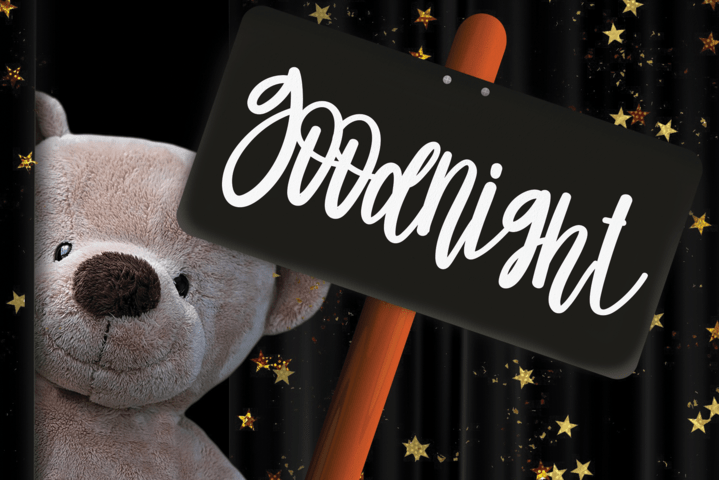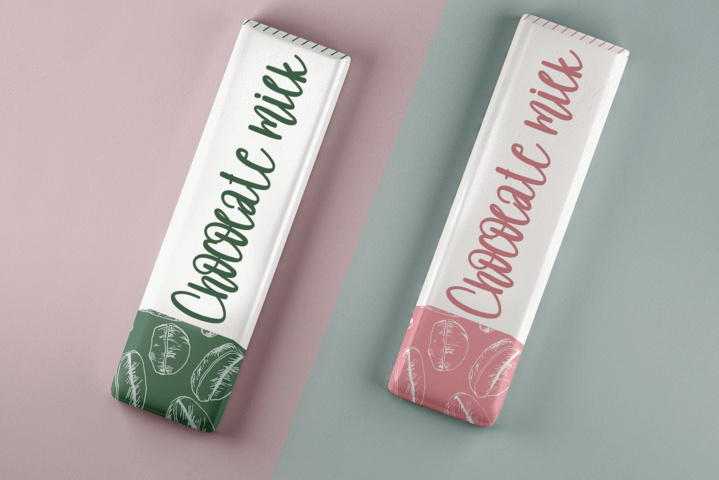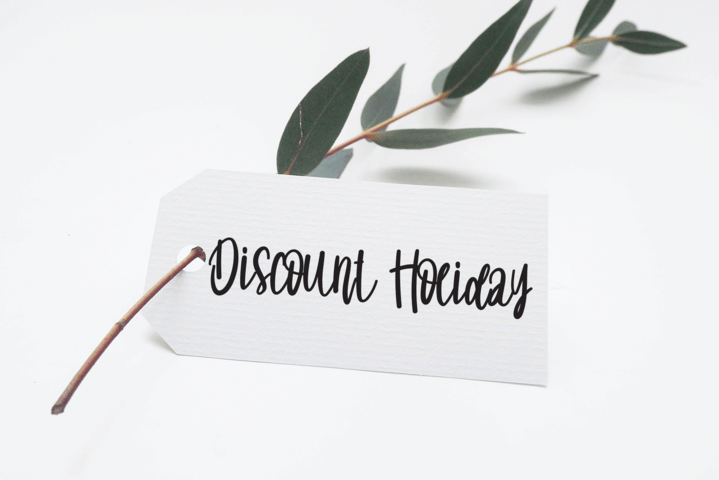
Watermelon Shortcake Font
Watermelon Shortcake Script Font
It’s a chic, refined script font that emanates sophistication and elegance. Its stylish alternates and ligatures make this font the perfect match for any project.